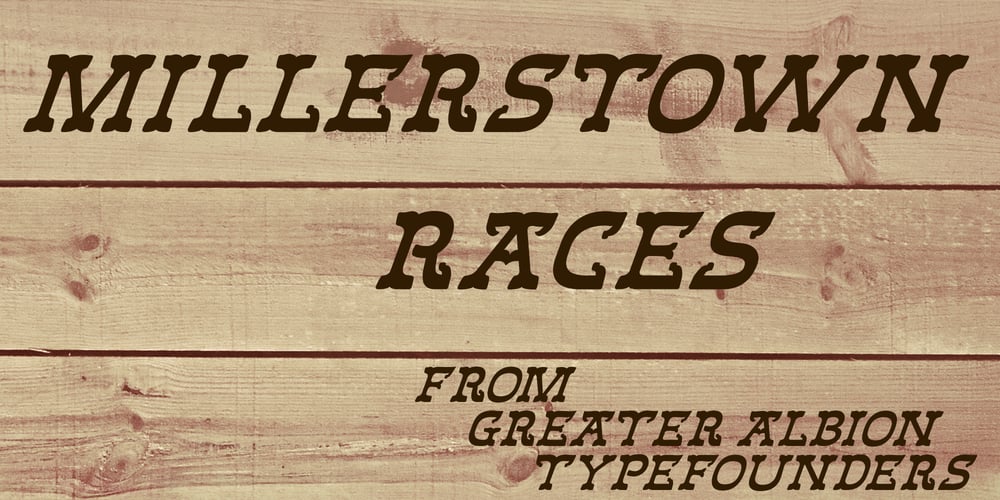
Millerstown Races
Millerstown Races font
Millerstown Races Font Family was designed by Paul James Lloyd and published by Greater Albion Typefounders. Millerstown Races contains 1 styles and family package options. Millerstown is full of that solid, 19th Century, transatlantic spirit of enterprise. It is an all capitals face, decorative but clear and legible, ideal for signage, posters and banners. “Millerstown Races” is a carefully constructed oblique which brings a sense of speed and motion. Bring a touch of American inspired flair to your next design project!